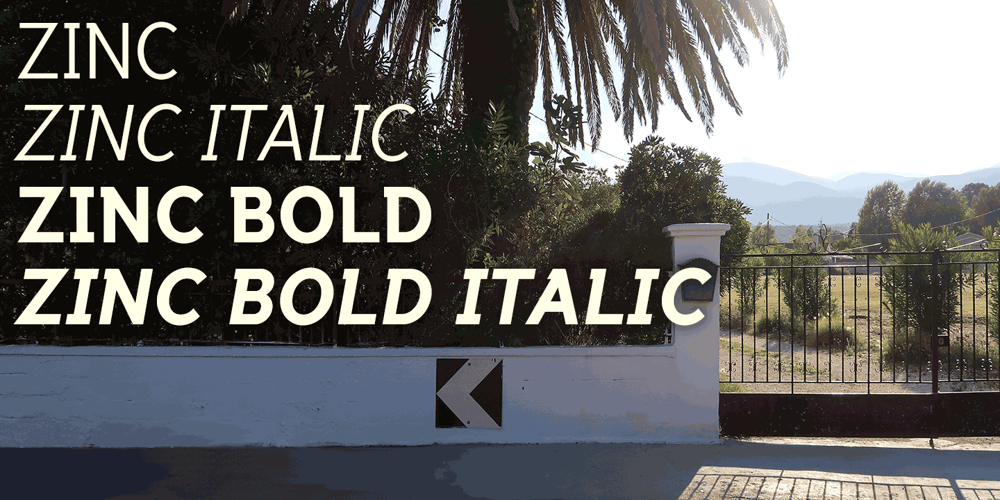
Zinc Font Family was designed by Keith Bates and published by K-Type. Zinc contains 4 styles and family package options. Zinc is a clean, distinctive family which is essentially a monoline sans serif but with horizontal and diagonal nubs that add a subtle script quality to display type and an easy-to-read rhythm to the flow of ordinary text.